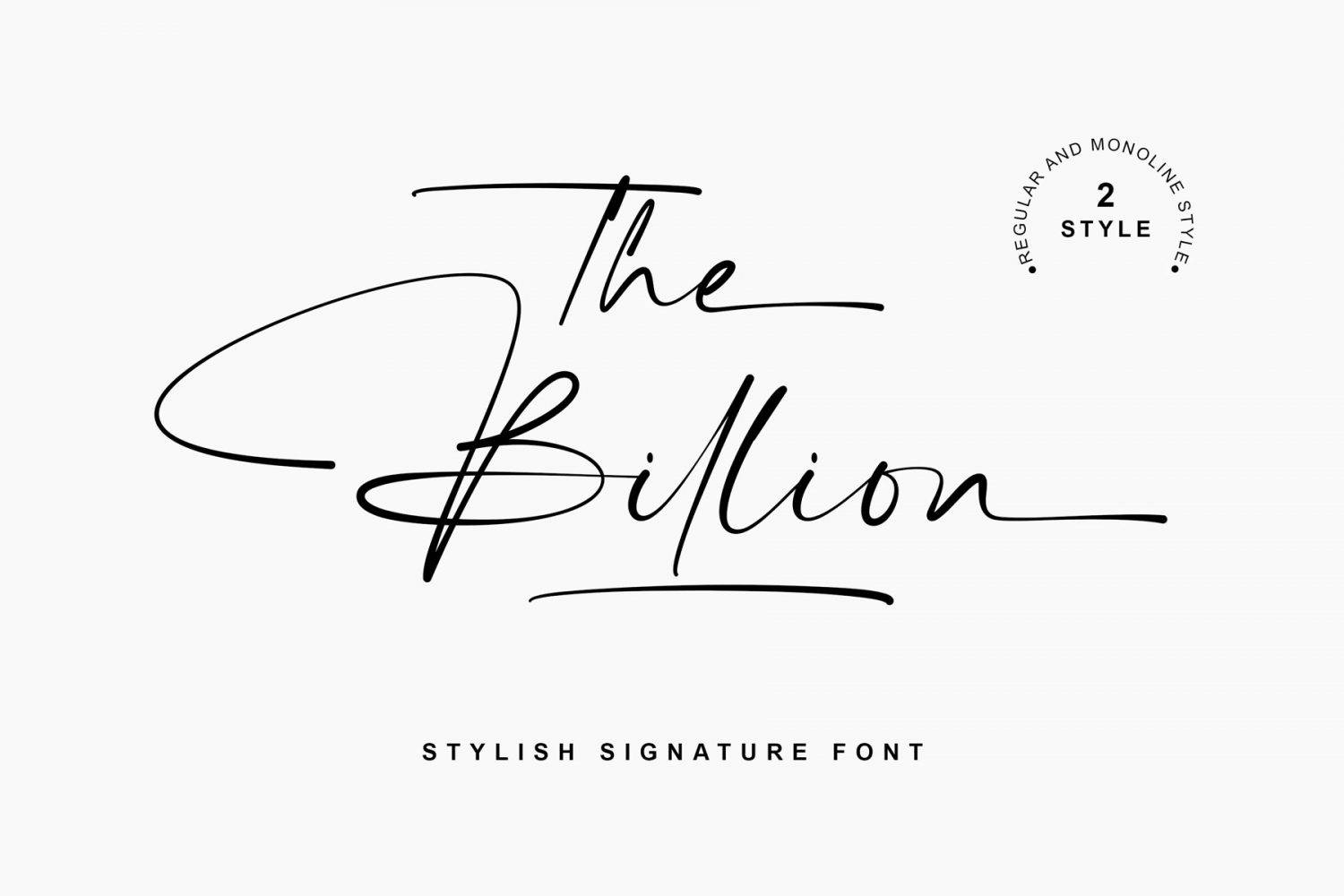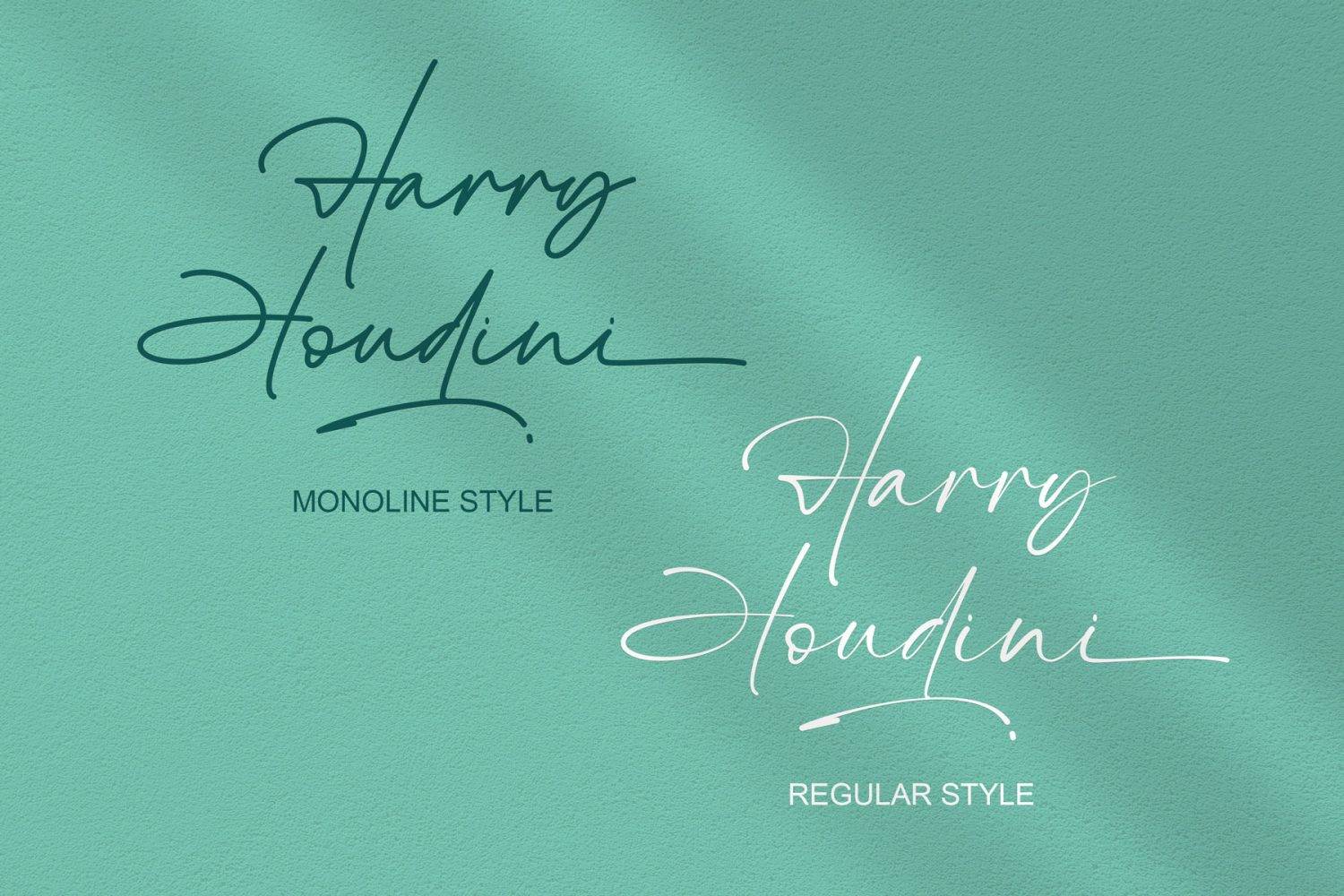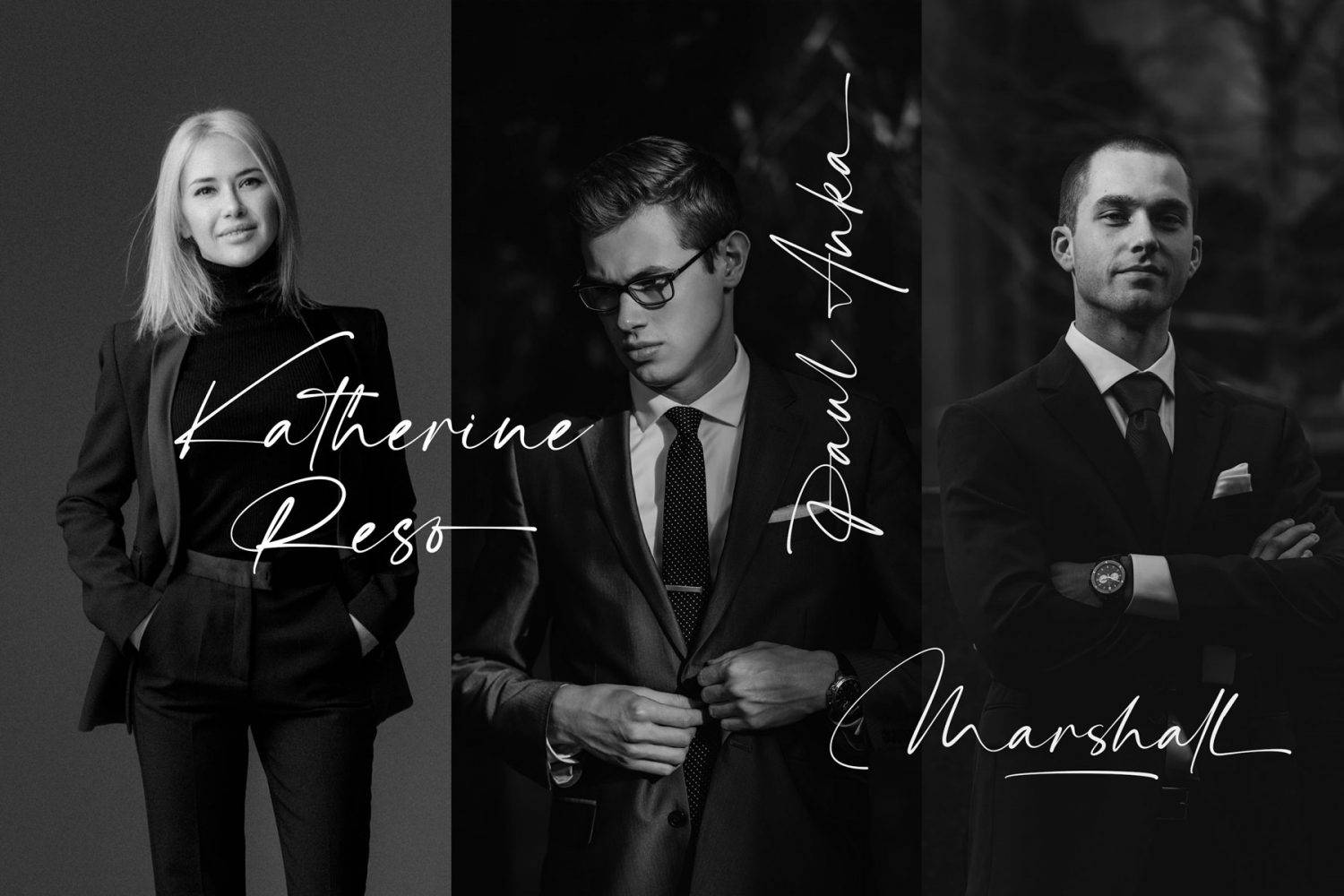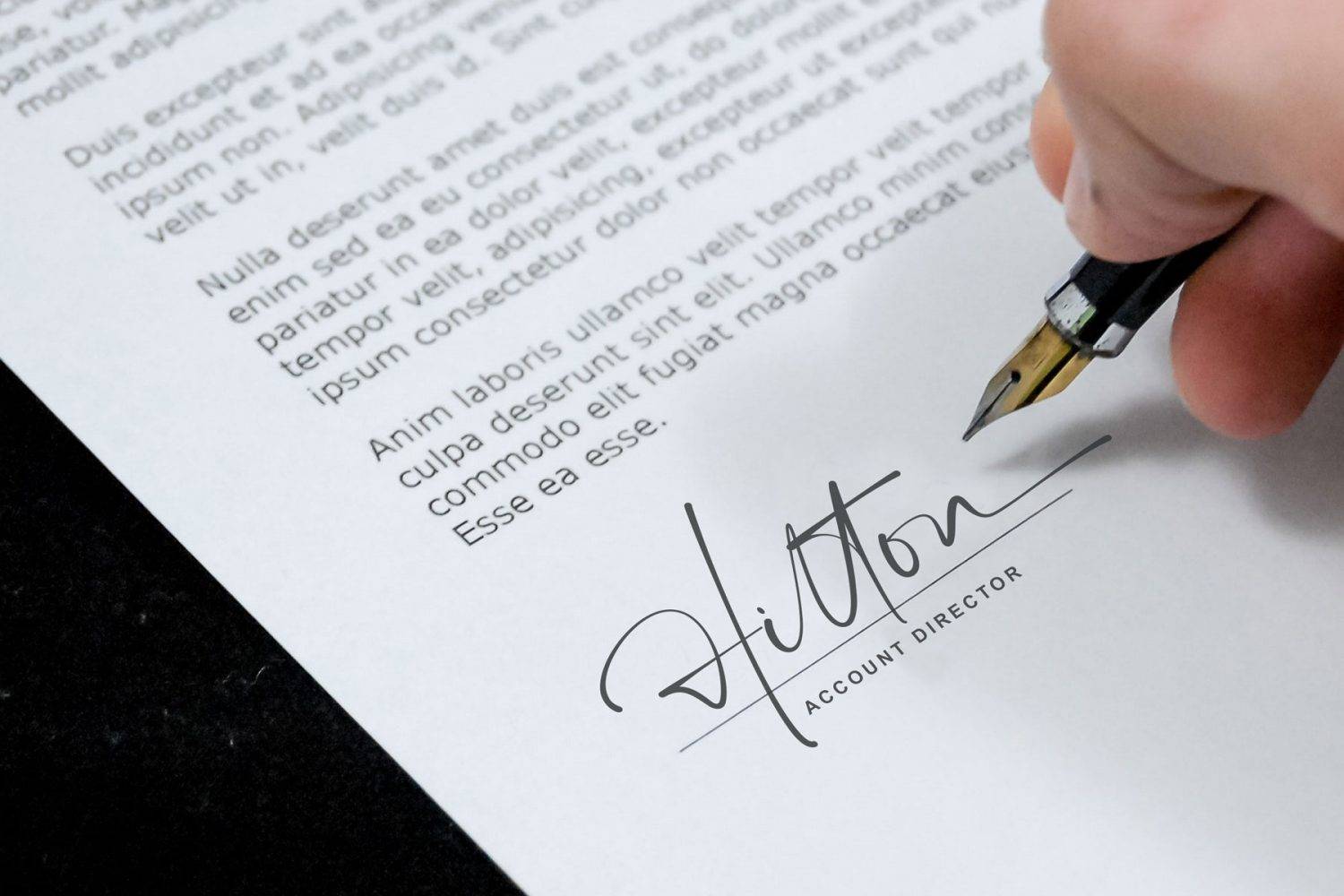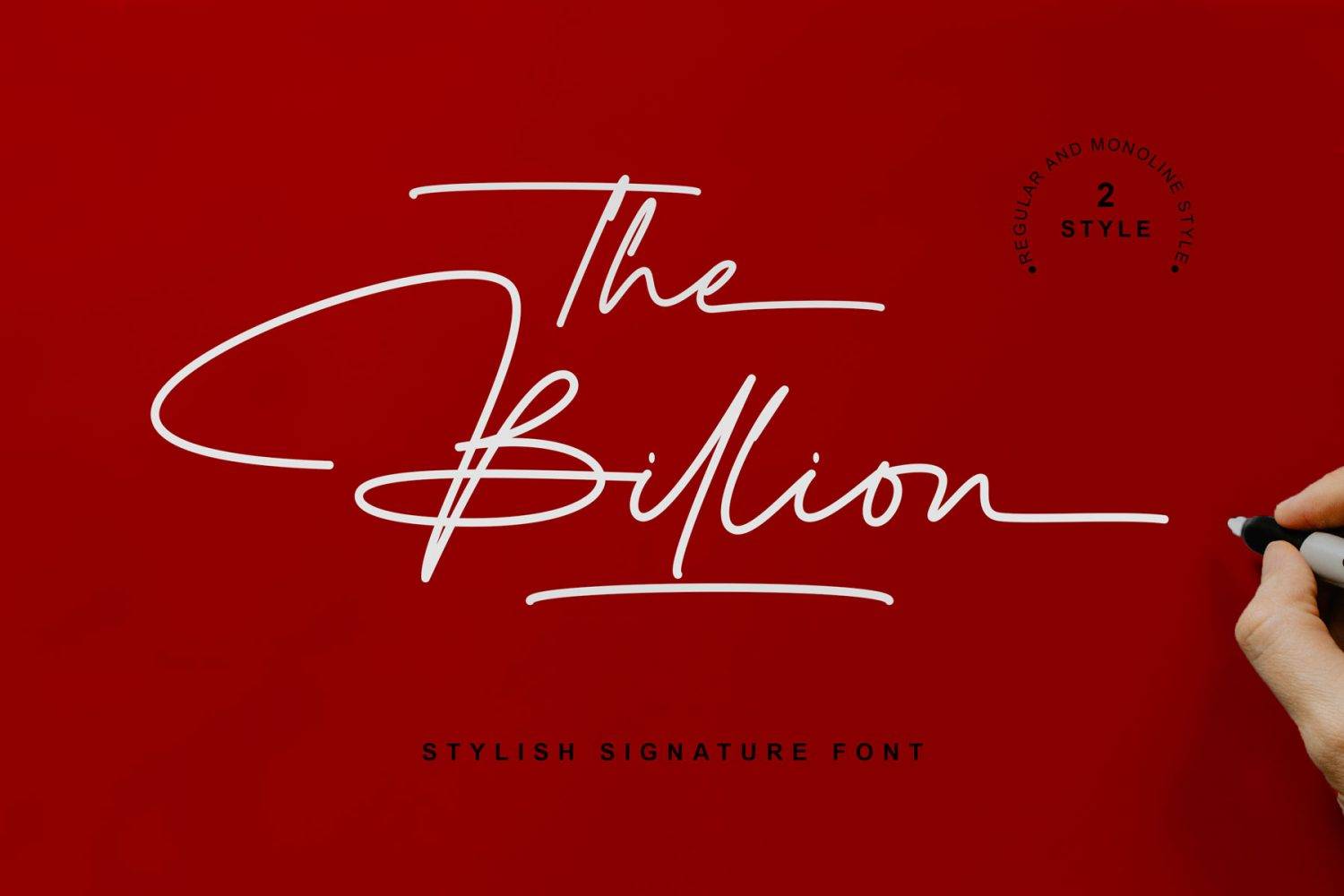
The Billion Font is a delicate, elegant script featuring fine, flowing lines and a sophisticated handwritten style that exudes modern luxury. Its slender strokes and graceful curves make it perfect for upscale branding, invitations, and stylish editorial projects where a refined, personal touch is desired. This font works best in large sizes to showcase its intricate details and enhance a high-end, artistic vibe.
The Billion Font
About The Billion Font
| Font family | The Billion Font |
| Release date | 2022-01-30 |
| Designer | Dwi Ahidian |